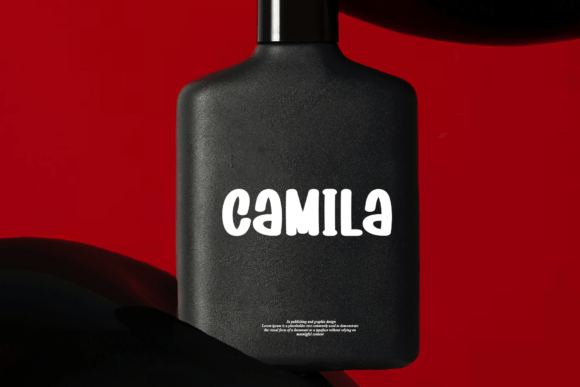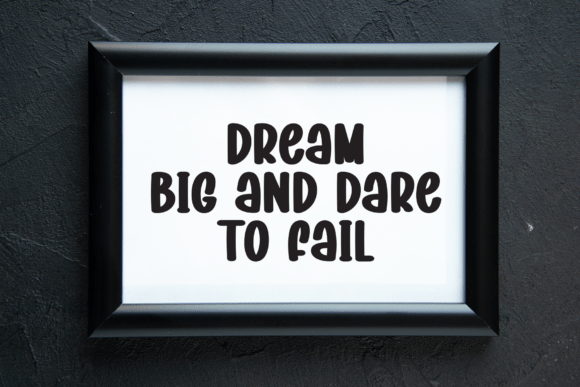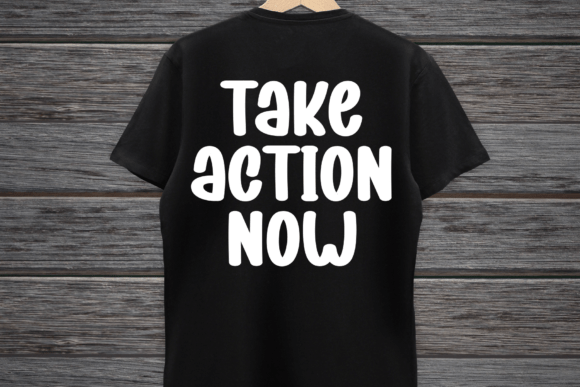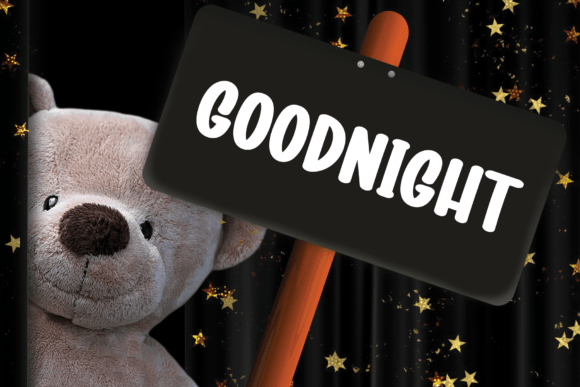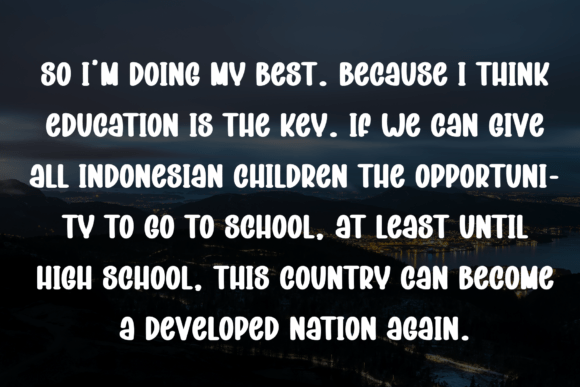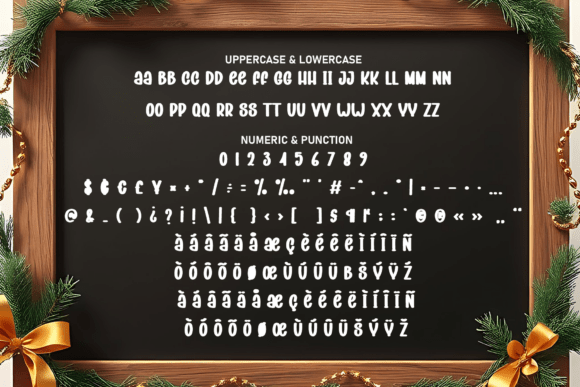
Introducing the Festive Board Christmas Font: Elevate Your Designs with a Touch of Holiday Cheer
As the holiday season approaches, designers and crafters are on the lookout for unique and creative elements to add a touch of festive flair to their projects. If you’re searching for a special font to make your designs stand out, look no further than the Board Christmas Font. This exceptional font is designed to bring a dash of holiday magic to your creations, making it perfect for a wide range of applications.
Unleash Your Creativity with Board Christmas Font
Our Board Christmas Font is more than just a collection of letters; it’s a gateway to creating extraordinary experiences through your designs. With its latest style and tasteful handwriting, this font is ideal for various projects, including:
Why Choose Board Christmas Font?
With so many fonts available, why should you choose Board Christmas Font for your projects? Here are just a few reasons:
- Unique and festive style: Our font boasts a distinctive and festive style that’s sure to capture the essence of the holiday season.
- Versatility: Perfect for a wide range of projects, from digital designs to print materials.